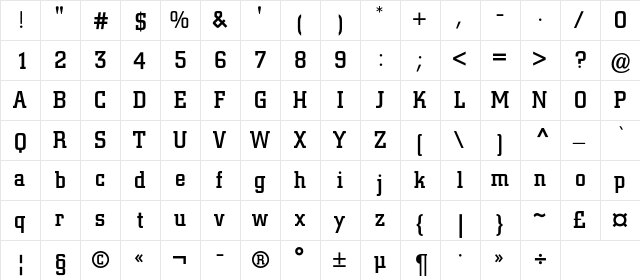
ColiseumC Bold
Design Context for ColiseumC Typeface
ColiseumC takes a measured approach to typography — its balanced proportions and neutral character make it a reliable workhorse for both digital and print work. Its bold stroke weight gives it real presence on the page.